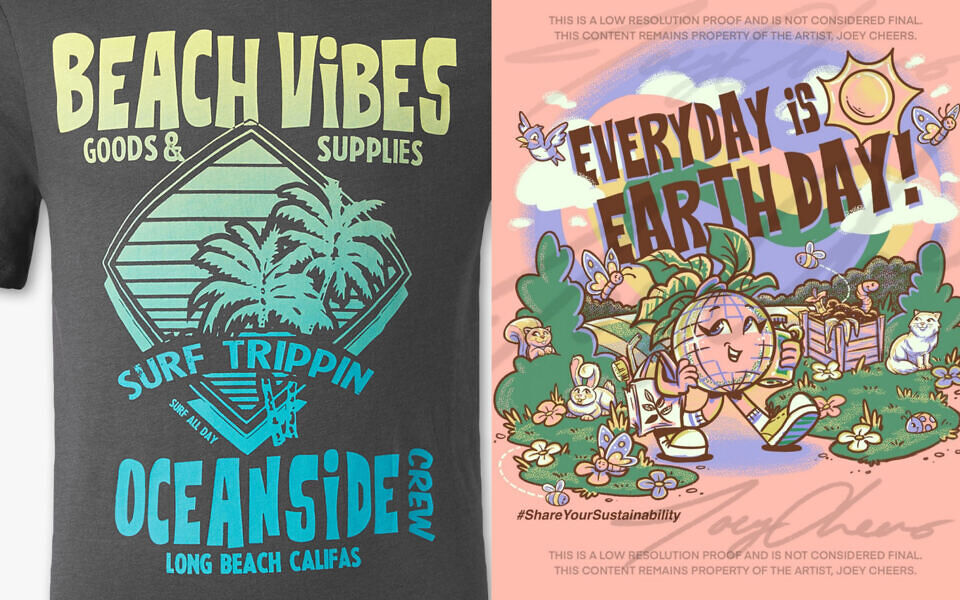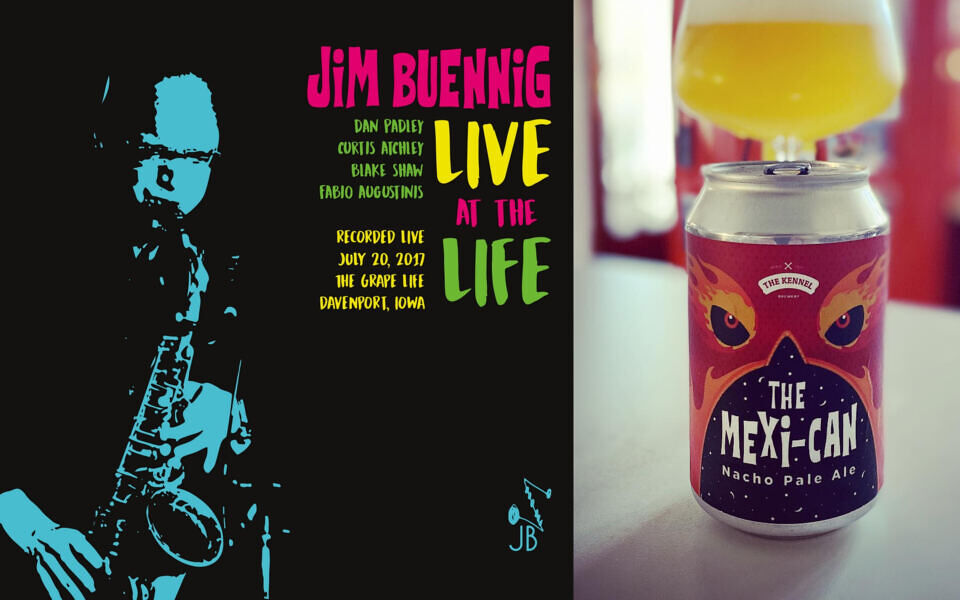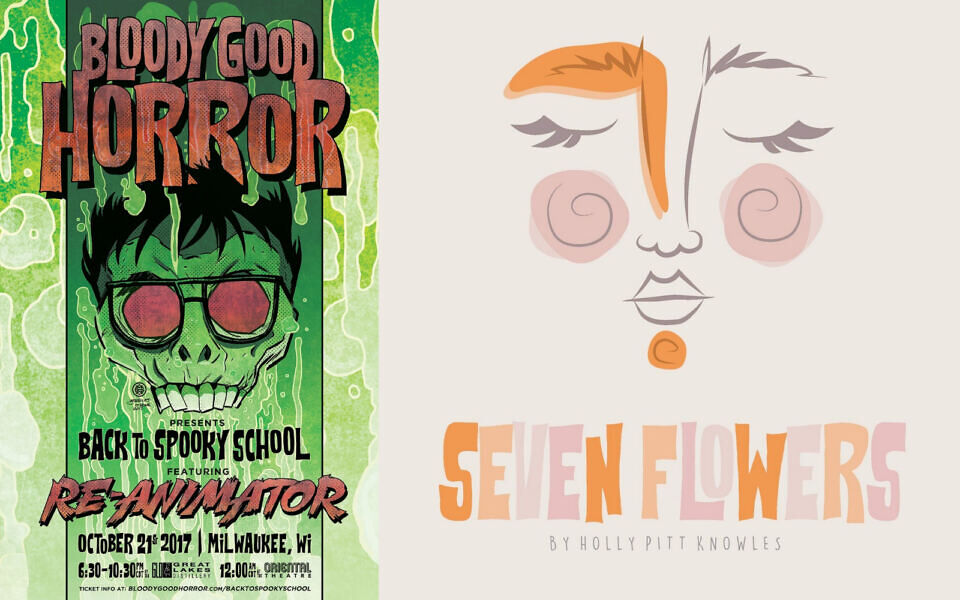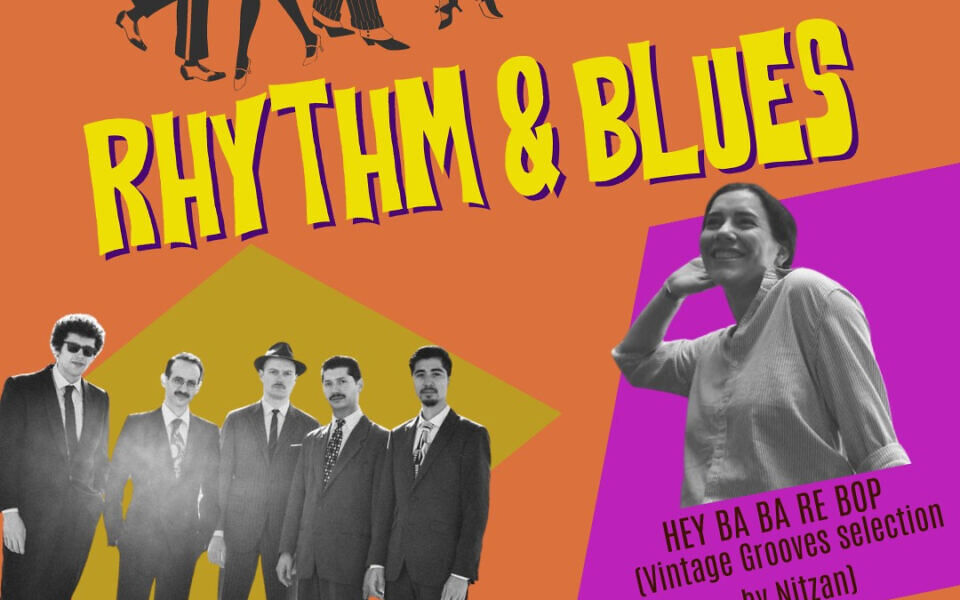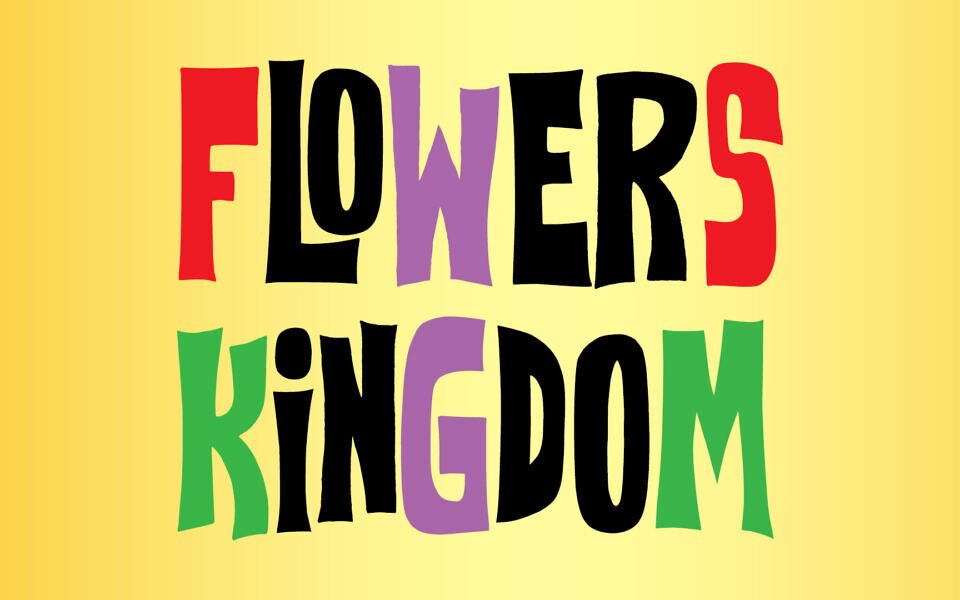
Flowers Kingdom Font
Flowers Kingdom is a bold groovy display font with a playful hand-drawn style and uneven lettering that gives designs an energetic, artistic feel.
Its chunky sharp shapes and quirky details make it perfect for posters, album covers, gaming graphics, streetwear branding, and eye-catching titles. Inspired by retro graffiti and urban pop aesthetics, this font delivers a fun and expressive look while keeping strong readability for creative projects.